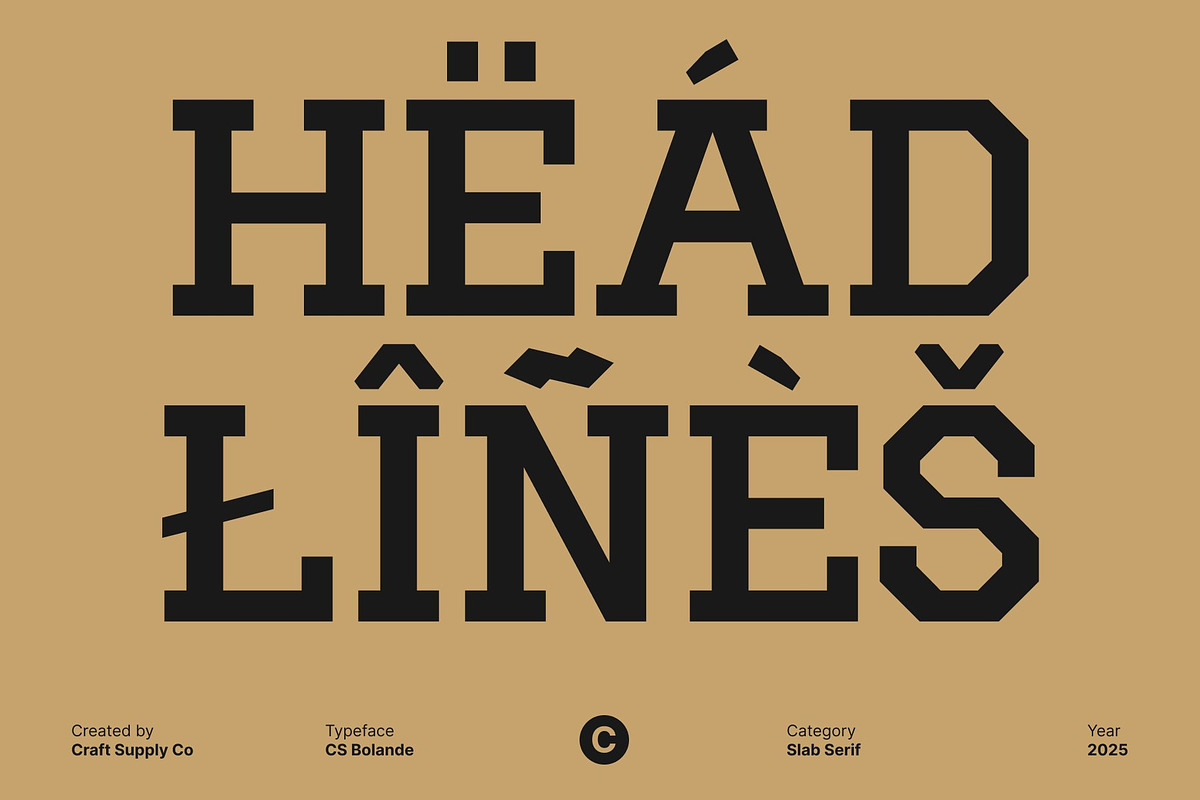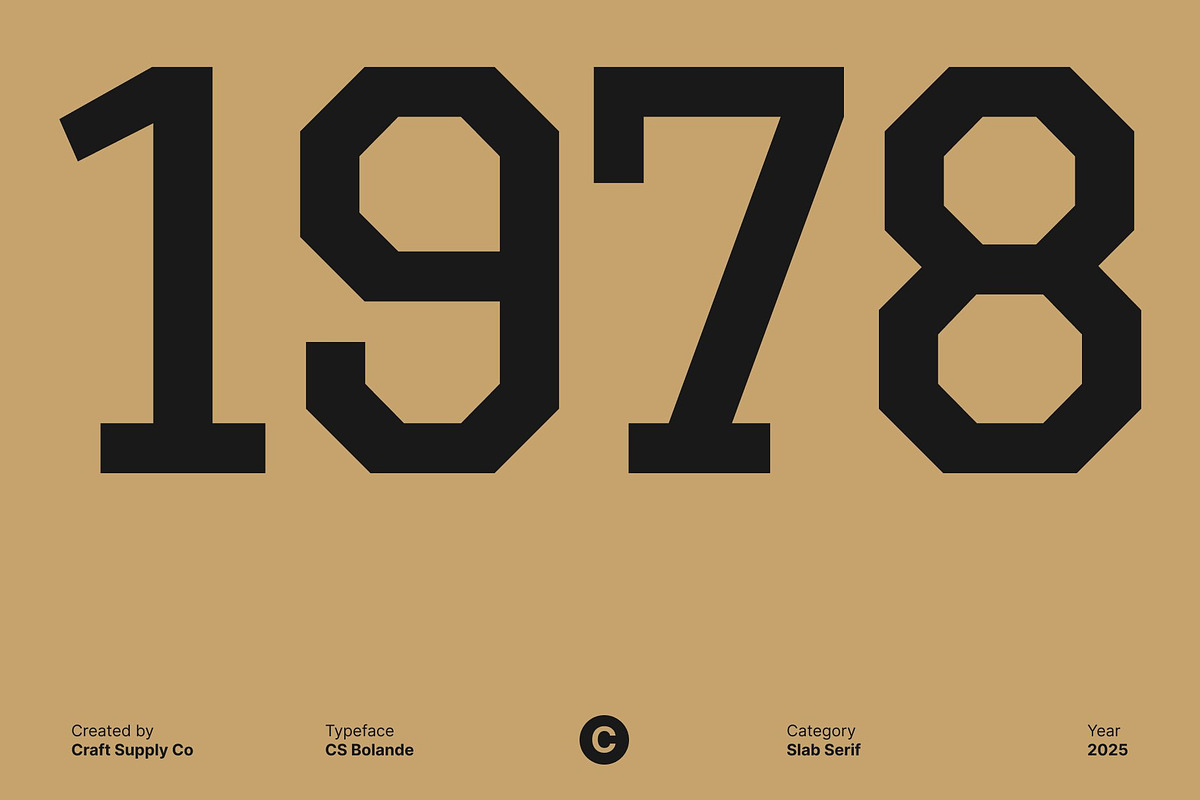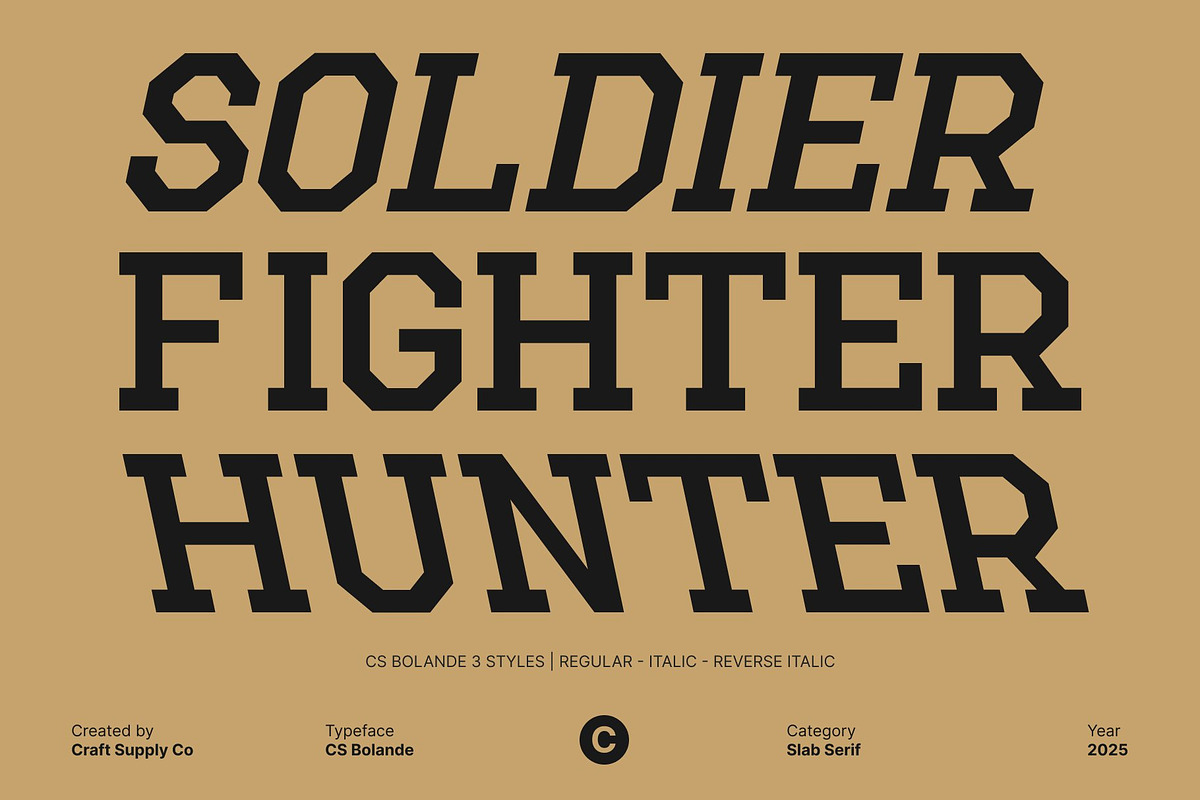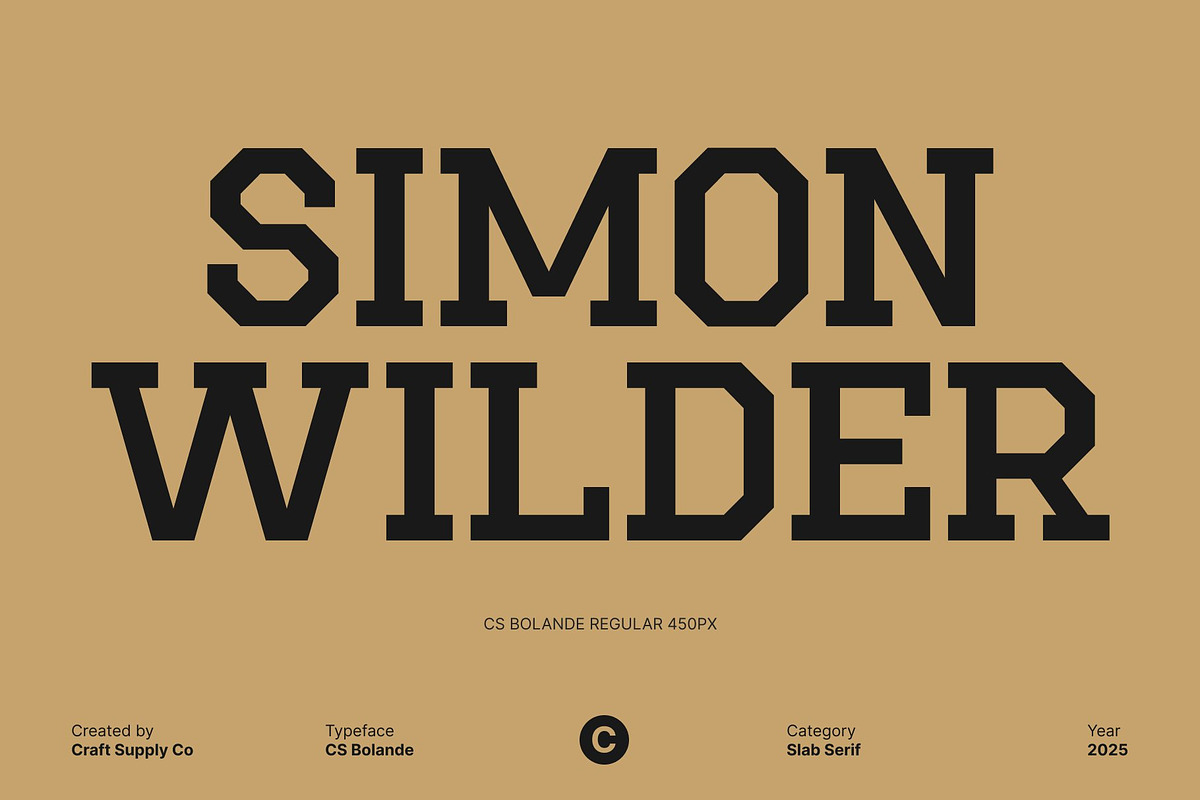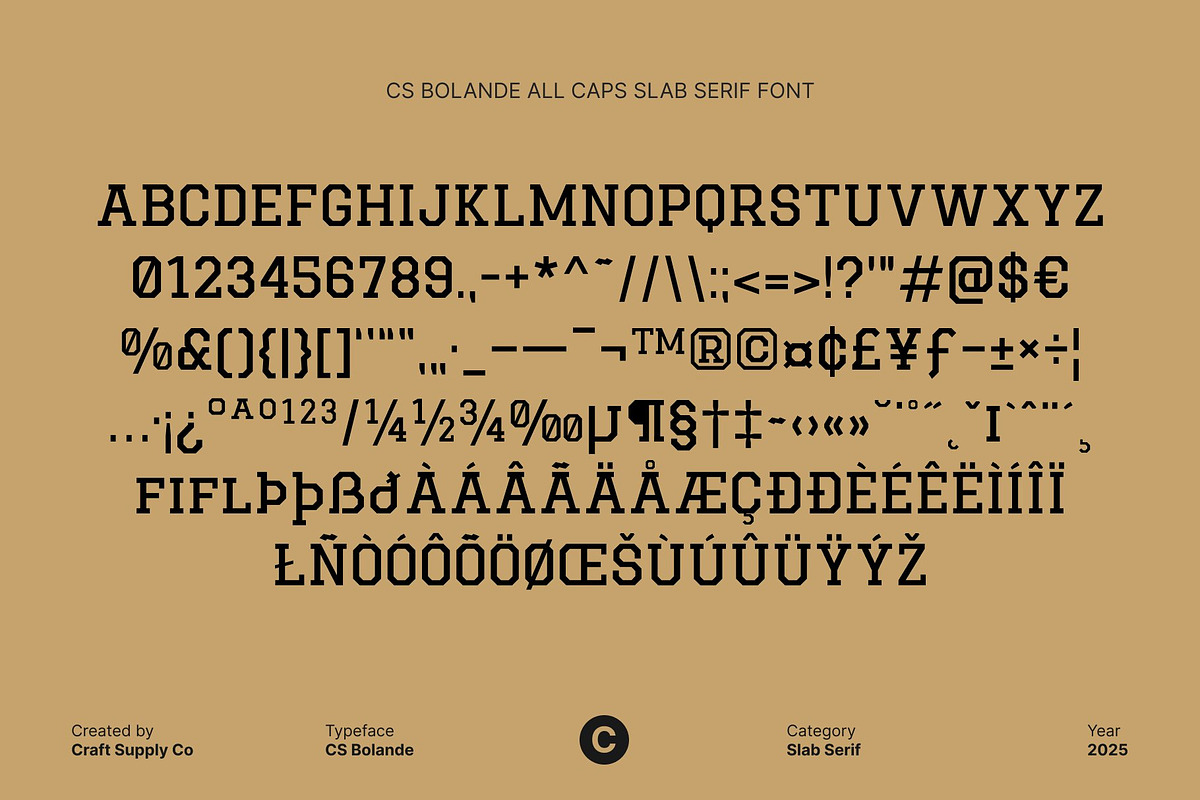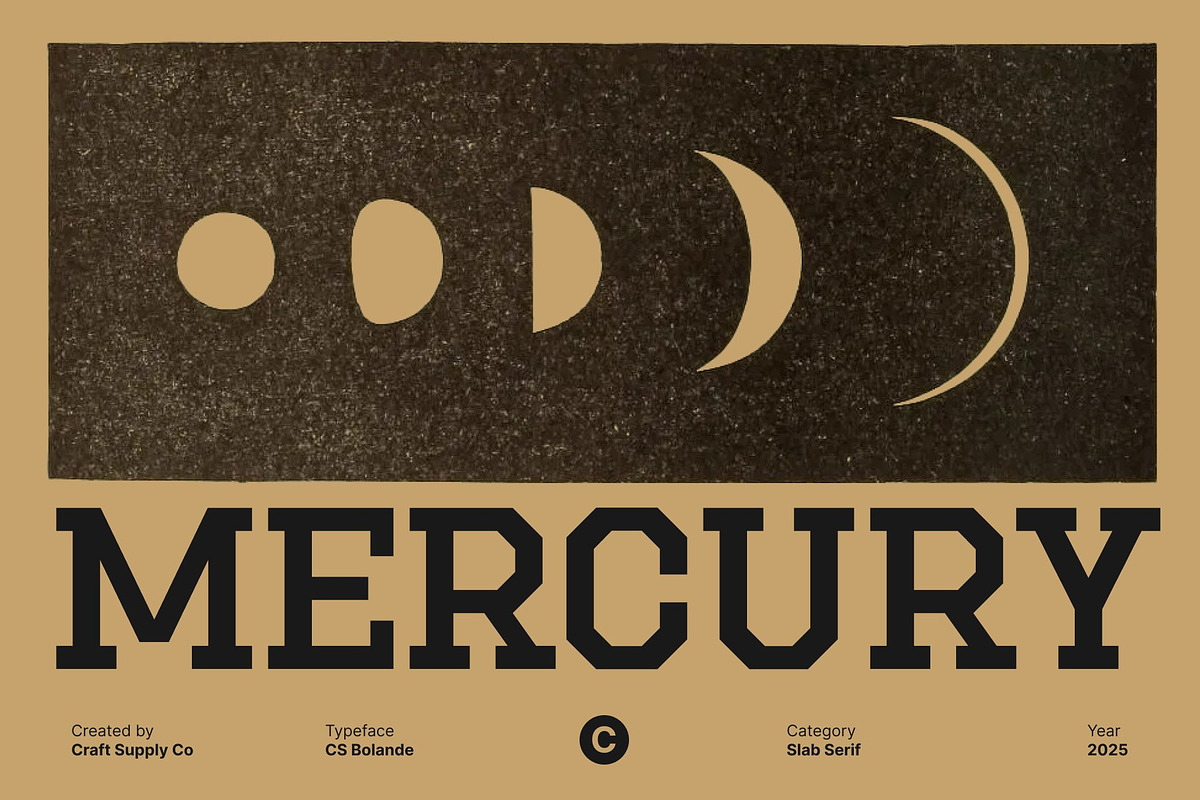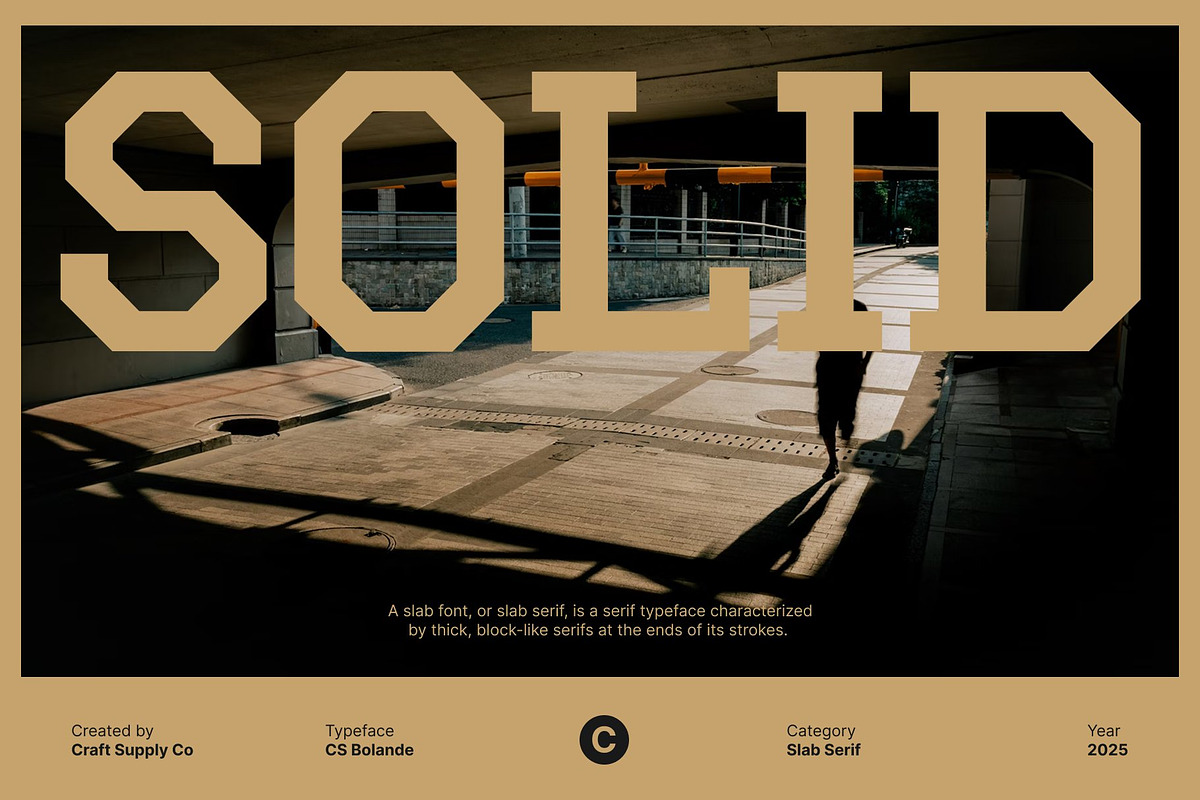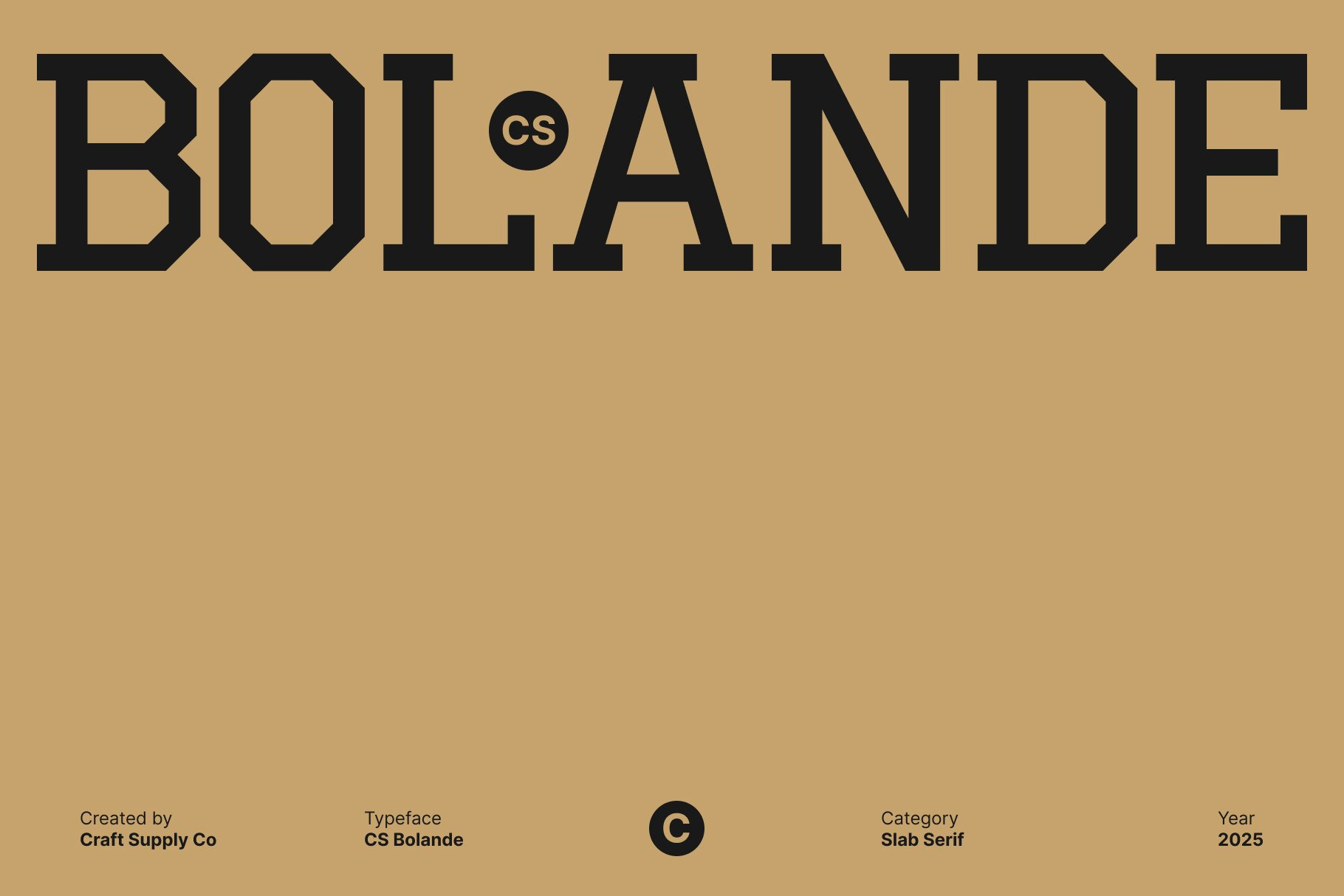
CS Bolande – Slab Serif Font
CS Bolande – Sharp Slab Serif for Modern Impact
Strong Slab Serif for Confident Design This is a sharp slab serif typeface composed of blocks like, crafted to create powerful and commanding visuals . Designed with clean, precise lines and sturdy letterforms, it delivers a sense of solidity and confidence, making it perfect for designs that demand attention and authority. Every curve and edge is meticulously shaped to maintain clarity and balance, even in large-scale compositions.
Sharp Structure for Maximum Readability Engineered for legibility and strength, this font stands out through its geometric precision and sharp proportions. Its defined slab serifs anchor each character, allowing the typeface to hold its weight beautifully in posters, headers, and branding materials. Whether displayed in uppercase or lowercase, it maintains a consistent and modern rhythm that enhances readability.
Perfect for Posters, Branding, and Modern Visuals From striking advertisements to innovative logo designs, this font adds a modern, cool vibe to any project. Its sharp linear design captures attention instantly, while the clean serif construction keeps it timeless and versatile. It’s ideal for projects that blend professionalism with creative energy.
Versatile and Timeless Expression This font bridges the gap between tradition and modernity the reliability of a classic slab serif meets the crispness of contemporary design. Use it to build strong typographic statements that project confidence, stability, and sophistication across branding, editorial, and digital platforms.
- CS Bolande Regular
- CS Bolande Italic
- CS Bolande Reverse Italic